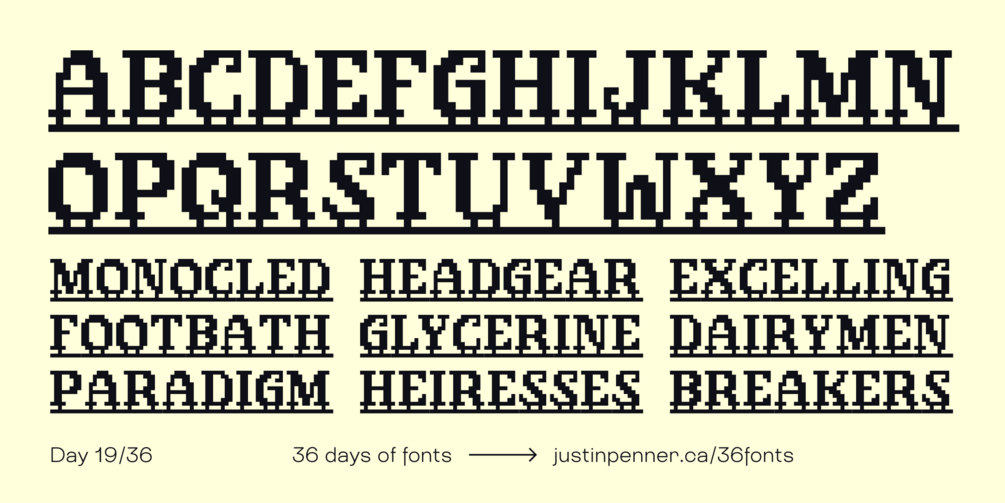
36 Days of Fonts: Day 19
Baseline
Recently I stumbled upon an interesting problem of designing a typeface for laser-cut words. The letters needed to be connected so that the final product was a single piece, *and* it had to have a flat bottom so it could stand upright without tilting or tipping over. This isn't the most elegant solution, but it's a fun one!